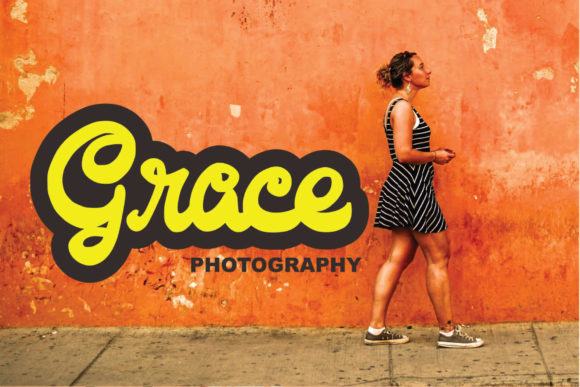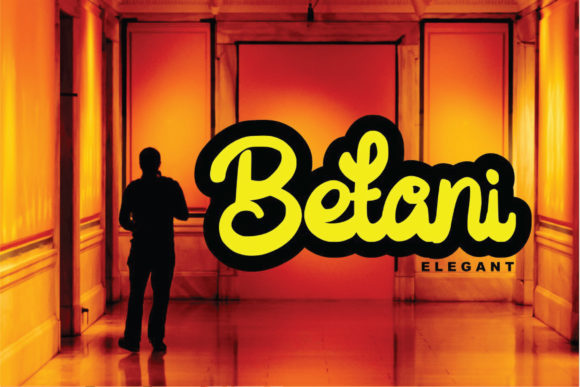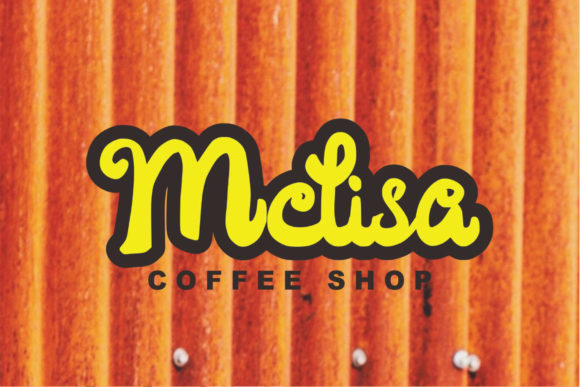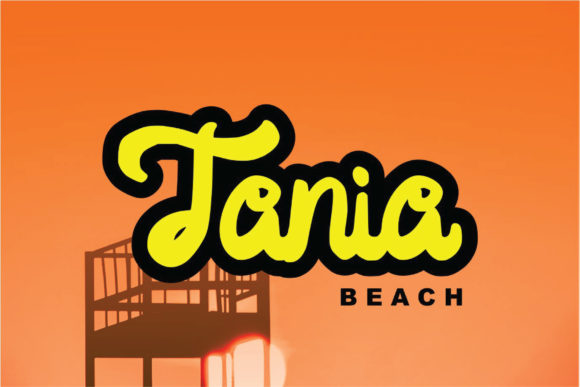
The Designer’s Delight: Debora Font
I’ll never forget the time I was working on a vintage-themed craft project, and I just couldn’t find the right font to match my vision. The client wanted something bold, chunky, and full of character, but my usual go-to fonts just weren’t cutting it. That’s when I stumbled upon the Debora font, and let me tell you, it was love at first sight! 💕
Debora is a bold and chunky handwritten font with a vintage feel that’s perfect for designers, crafters, and creative hobbyists alike. In this article, we’ll dive into the world of Debora, exploring its features, uses, and some amazing alternatives.
An Honest Review of Debora Font
What I Love About Debora ✨
- 💥 **Bold and eye-catching**: Debora is a statement font that demands attention.
- ✅ **Vintage vibe**: Its chunky, handwritten style is reminiscent of classic signage and posters.
- 🎨 **Highly versatile**: Debora can be used for a wide range of projects, from crafts to commercial designs.
- 👍 **Easy to read**: Despite its boldness, Debora remains surprisingly legible, even at smaller sizes.
- ⚠️ **Limited use in body text**: Debora’s boldness can make it overwhelming for longer blocks of text.
- 🤔 **May not be suitable for very small sizes**: Debora’s chunky style can become blurry or pixelated at extremely small sizes.
The Backstory of Debora Font
Debora was designed with the intention of capturing the essence of vintage signage and posters. Its creator drew inspiration from classic fonts of the past, but with a modern twist. The result is a font that’s both nostalgic and fresh.
| Font Name | Debora Font |
| Author | Ian Mikraz |
| What is Debora font best used for? | Debora is perfect for bold, eye-catching designs, such as posters, flyers, and crafts. |
| Does Debora support OpenType features? | Yes, Debora supports OpenType features, such as glyphs and stylistic alternates. |